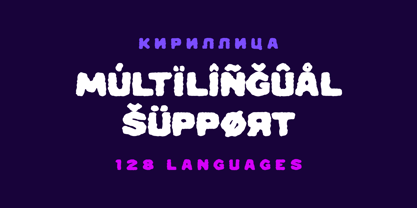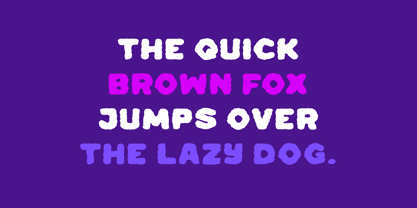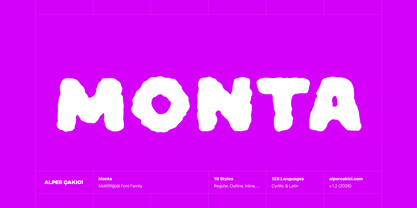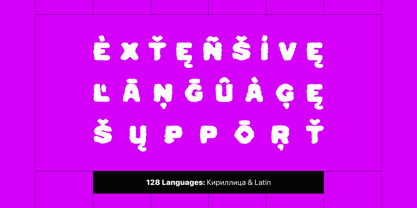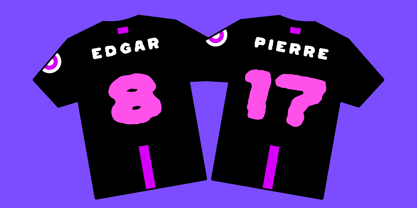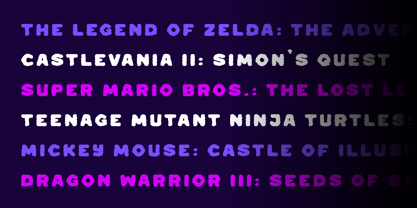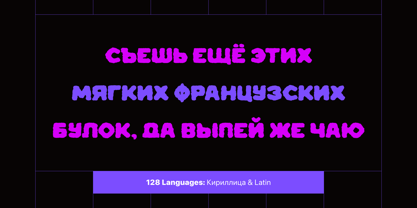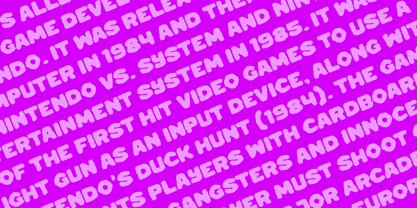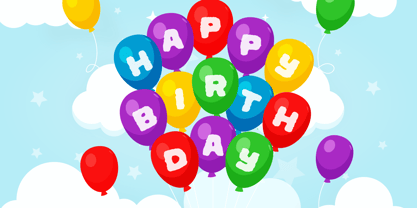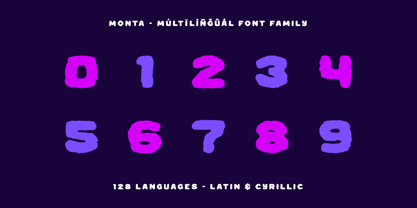
Monta
by AlperCakici
The Monta Font Family was designed by Alper Çakıcı and published by AlperCakici. Monta contains 18 styles and family package options. More about this family
Monta is a bold sans serif typeface family designed with distinctive melted-like edges that give it a raw, expressive personality. The forms appear slightly eroded and organic, creating a balance between strong geometric structure and imperfect texture. This contrast makes Monta both modern and experimental, ideal for designers who want typography with attitude and visual impact. The family includes a wide variety of expressive styles, allowing Monta to adapt to many creative directions. From the clean strength of Monta Regular and Monta Angular to the hand-crafted feel of Monta Pencil and Monta Brush, each style explores a different interpretation of the same core design. Variants such as Outline, Inline, Rimmed, and Rough expand its decorative potential, while Eroded and Brush emphasize the melted edge aesthetic that defines the family. With italic companions for most styles, Monta offers flexibility for dynamic layouts and typographic contrast. The angular cuts and softened, melting edges create a distinctive rhythm that works especially well at display sizes. Headlines, posters, branding, album covers, gaming graphics, packaging, and social media visuals benefit from Monta’s bold character. Despite its artistic style, Monta maintains strong readability thanks to its solid sans serif foundation. The consistent structure across the family ensures visual harmony when combining styles within a single design project. Supporting 128 languages, Monta provides broad Latin coverage, making it suitable for international branding and global creative work. Whether used for bold editorial titles, modern branding systems, or experimental graphic design, Monta delivers a striking typographic voice that feels both contemporary and handcrafted.
Designers: Alper Çakıcı
Foundry: AlperCakici